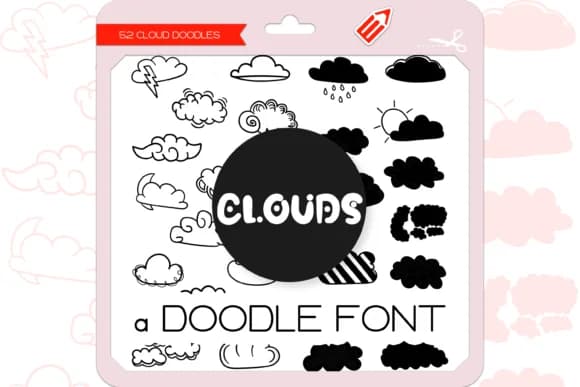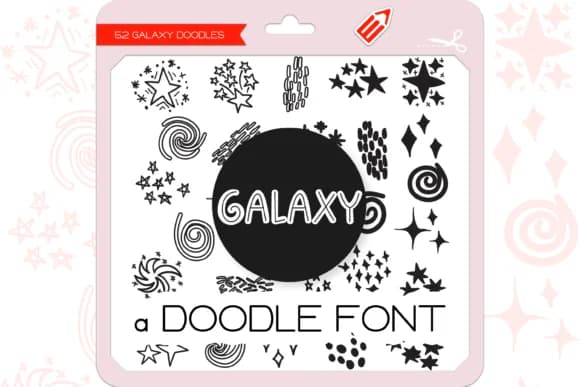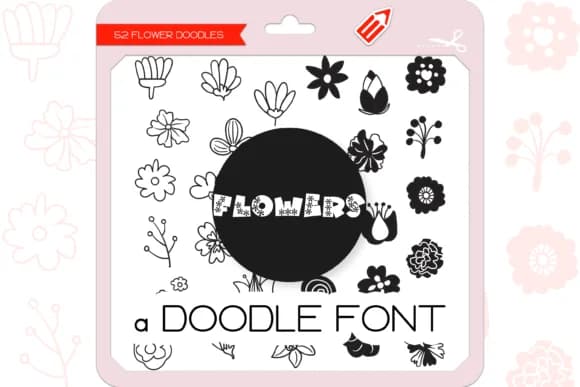
1 / 8About Nature Alphabet Font
Playful and organic, this dingbat font brings genuine warmth to any design work that needs visual character and charm. Nature Alphabet by WADLEN replaces each letter with a hand-drawn nature icon, transforming ordinary text into something visually rich and narrative. With 52 different icons spanning the full alphabet in both outline and filled versions, you get real flexibility in how you layer and combine these elements into your creative layouts.
You'll find it especially valuable for nature-themed greeting cards, DIY botanical stickers, scrapbooking layouts, and environmental nonprofit signage. Hand-drawn icons work better than purely geometric ones when you want something with more personality and tactile warmth, while having two style options lets you create visual depth and contrast without changing fonts. Each icon carries enough detail to shine beautifully when printed at medium to large sizes, making this ideal for packaging labels, decorative poster elements, and custom gift tag designs. For typography-heavy sections, pair Nature Alphabet with a warm serif like Garamond to balance the playful nature icons with readable body copy. Pick it up on Creative Fabrica and start building with these symbols in your next creative project.
Nature Alphabet Font is a versatile dingbats font that works for both headings and body text. Pair it with a contrasting sans-serif or serif font to add visual interest and a clear distinction between titles and body copy.